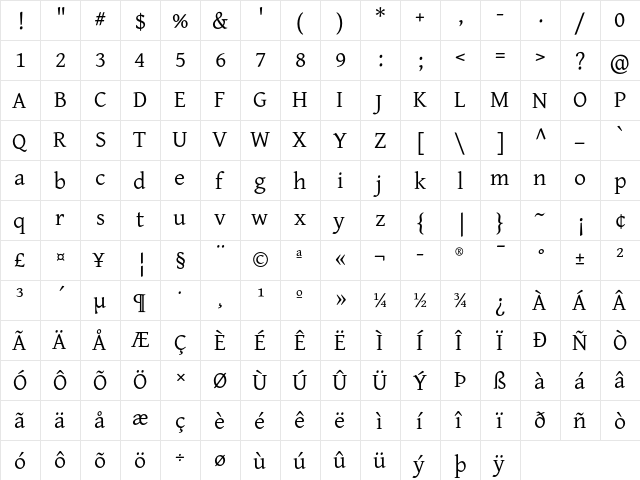
Temporarium Regular
Design Context for Temporarium Typeface
Temporarium takes a measured approach to typography — its balanced proportions and neutral character make it a reliable workhorse for both digital and print work.
Pro Tip: Pair Temporarium with a font of contrasting weight or personality to build a more expressive typographic hierarchy.